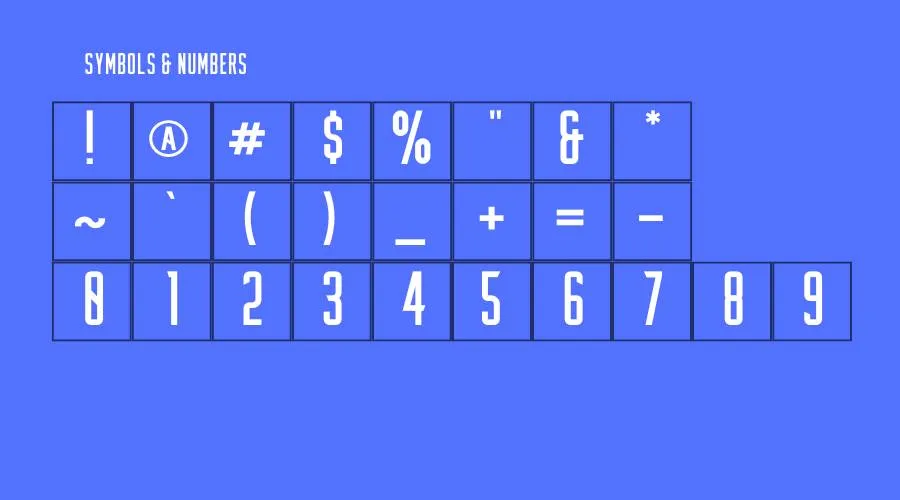
Lakers Font
About Lakers Font
The lakers Font is under the category of the logo texture family and was developed by a well-known graphic designer named Gfonts. This font is available in both OTF and TTF file formats, which is free and perfect for your both working systems MAC and PC.
This font has an online generator tool, where you may easily change all your normal types of alphabet characters into stylish and modern shapes. The subfamily of this typeface is regular and contains various types of characters such as uppercase letters, numerals, digits, symbols, and many more.
You may combine this font easily with sareeka font and create new trendy designs. You may also utilize this font for both CSS and adobe photoshops.
Due to its logo and stylish texture look appearance, you may utilize this font for different purposes, and tasks. This font is perfect for multiple projects such as social media posts, banners, advertisements, and many more.
• Lakers Bold
• Lakers Regular
• Lakers Italic
What type of font is Lakers Font?
The lakers Font is under the category of the logo texture family and this font is available in both OTF and TTF file formats.